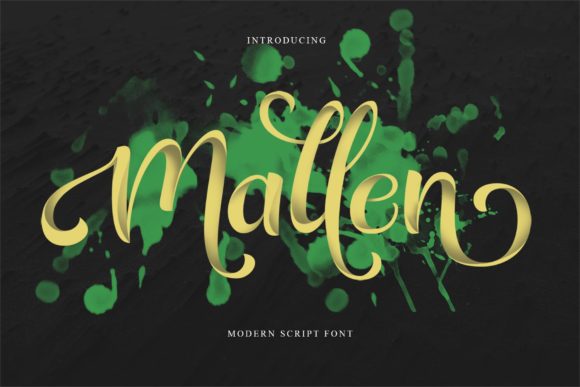
Behold the Mallen Font - a captivating script font that breathes life into your creative projects!
With its graceful curves and playful charm, Mallen dances across your screens like a symphony of ink. Its flowing style is a visual melody that elevates your words, whether printed on a magazine cover or shared in the digital world.
Immerse yourself in the allure of Mallen, a font designed to exude elegance and sophistication. Picture your wedding invitations adorned with delicate script, carrying the promise of a love story unfolding. Let your social media posts sparkle with individuality, each word a brushstroke of creativity against the canvas of your digital presence.
Explore the versatility of Mallen, a font that adapts seamlessly to your diverse projects. It effortlessly complements product packaging, adding a touch of allure to your designs. Unleash your inner artist as you craft printed quotes that captivate and inspire, turning ordinary words into works of art.
Join the creative movement and embrace the Mallen Font, a masterpiece crafted by Alit Design. Let your imagination run wild as Mallen transforms your crafting dreams into tangible realities. Its enchanting beauty will leave an indelible mark on your creative journey, leaving your audience spellbound.